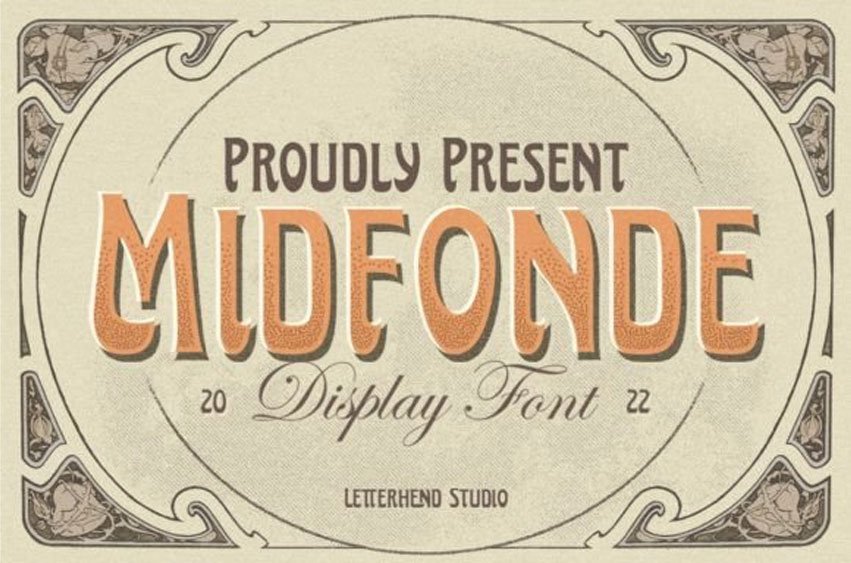
Midfonde Font
Midfonde Font is a slab serif typeface inspired by the art deco style.
This type of font is perfect for logos, headlines, signage, and other formal forms such as invitations, labels, magazines, books, greeting/wedding cards, packaging, fashion, make-up, stationery, novels, labels or any type of advertising purpose.